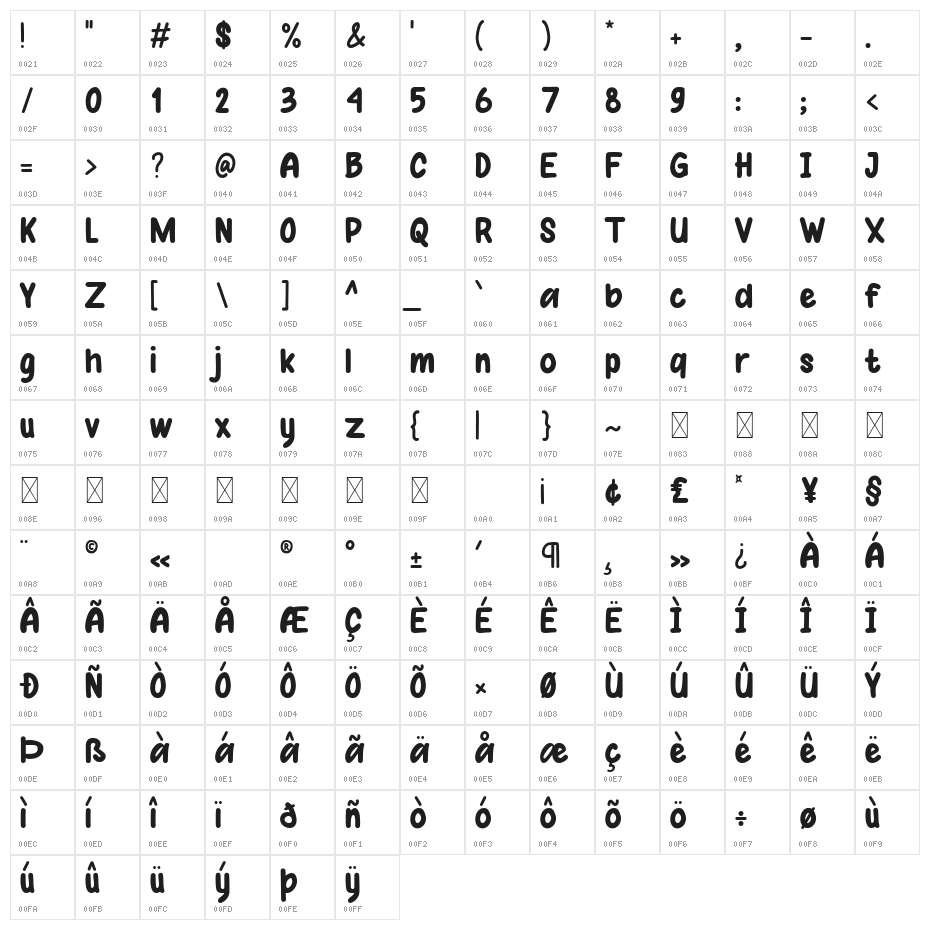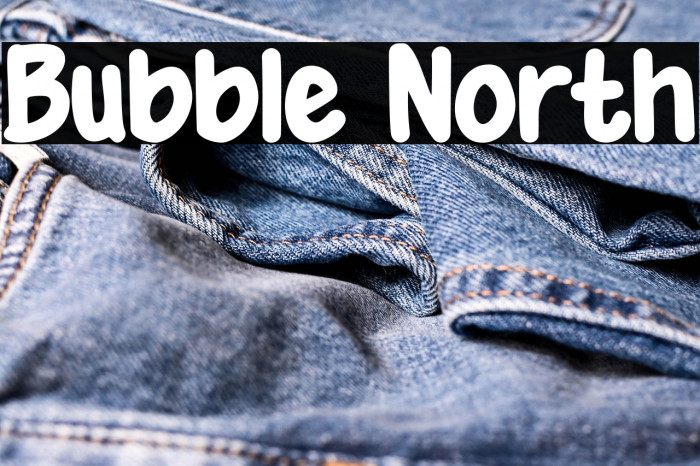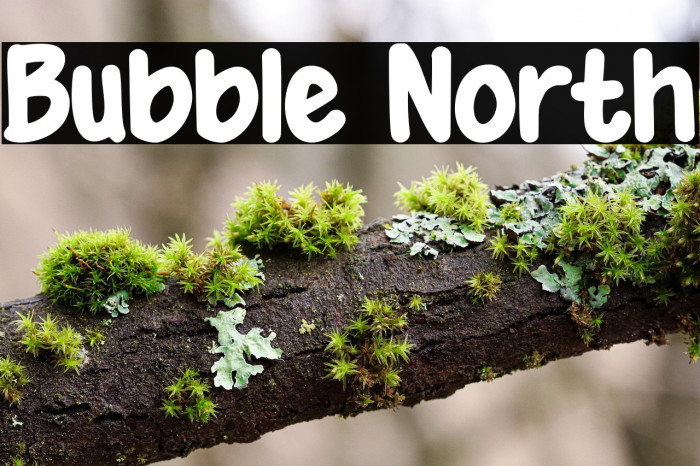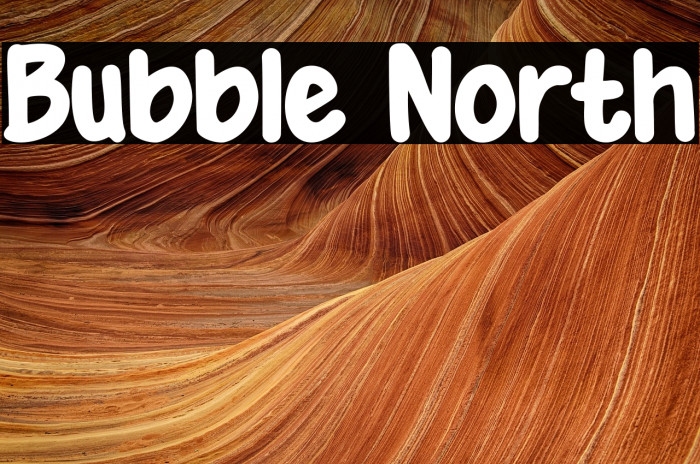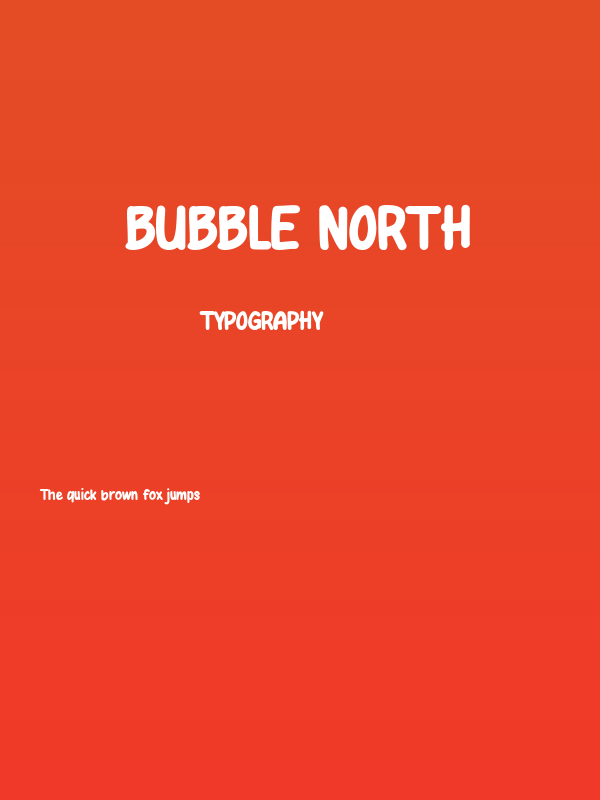
Bubble North Font
Bubble North Description
This playful and bold typeface features rounded, bubble-like characters that convey a sense of fun and approachability. The letters are thick and uniform, with a consistent stroke width that enhances readability while maintaining a whimsical aesthetic. The uppercase and lowercase letters are well-balanced, and the numerals and special characters complement the overall style. This font's design is ideal for capturing attention and adding a lively touch to any project.
| Overall Style | Playful, Fun |
| Proposed Projects | Ideal for children's books, playful branding, party invitations, and posters. |